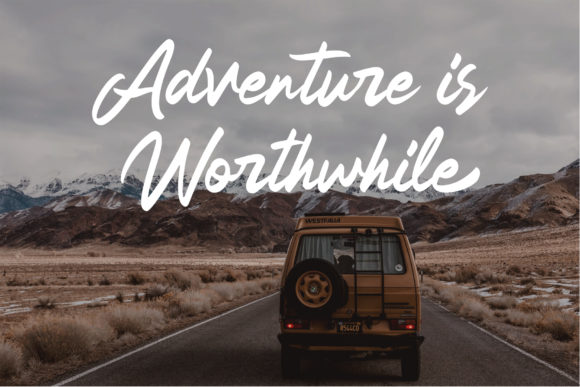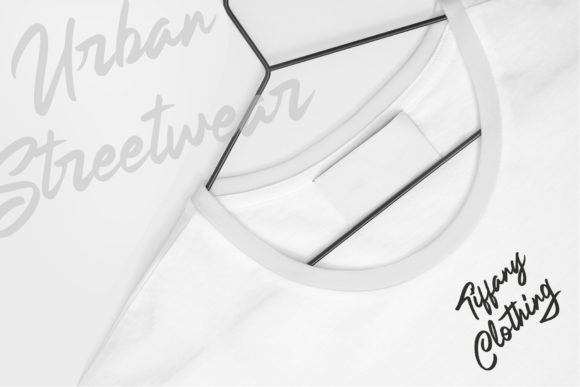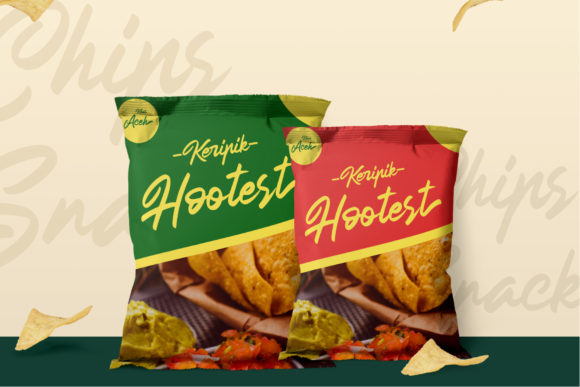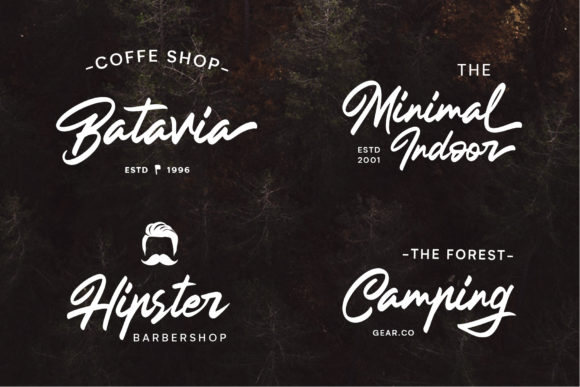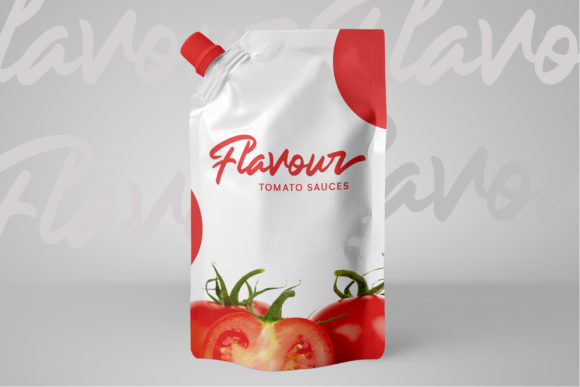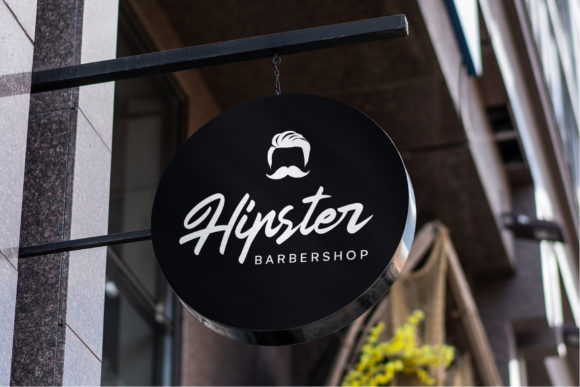
Introduction to Shining on Font
As a designer, there’s nothing quite like the thrill of bringing a creative project to life. You’ve poured your heart and soul into every detail, from the color palette to the typography. And then, you stumble upon the perfect font – one that adds a touch of elegance and sophistication to your design. For many designers, that font is the Shining on Font, a beautiful handwritten script font that shines on any design.
Whether you’re crafting a wedding invitation, a heartfelt thank you card, or a logo that exudes charm, the Shining on Font is a valuable resource that can elevate your design to new heights. With its high-quality, handwritten touch, this font is a must-have for any designer looking to add a personal and creative flair to their work. And the best part? It’s available for free download, making it an accessible design resource for designers of all levels.
One of the standout features of the Shining on Font is its transparent background, allowing you to easily combine it with other design elements. Whether you’re working on a complex project or a simple greeting card, this font is sure to shine – and make your design stand out from the crowd.
Key Features of Shining on Font
- High-quality design: Shining on Font offers a unique and creative design that is perfect for any project.
- Transparent background: The transparent background of this font allows for seamless integration into any design project.
- Resolution: The font is designed to be resolution-independent, ensuring that it looks great at any size or resolution.
- Size: The font comes in a range of sizes, from 12pt to 72pt, making it versatile for use in various design applications.
- Unique characteristics: The Shining on Font features a distinctive shine effect that adds a touch of elegance and sophistication to any design project.
Honest Review: Shining on Font
I recently stumbled upon the Shining on Font and was excited to give it a try in my next creative project. I must say, I was pleasantly surprised by the quality of this font. The high-quality design is perfect for adding a touch of elegance to any text-based element.
One of the standout features of this font is its transparent background, making it incredibly versatile for designers. I can imagine using it for anything from a logo to a social media post.
- ✨ High-quality design that adds a touch of sophistication to any project
- ⚠️ Limited font sizes and styles available
- ⚠️ Not ideal for large-scale or high-density text
Overall, I’m impressed with the Shining on Font and would definitely recommend it as a design resource for any creative project. It’s a great addition to any designer’s toolkit and is sure to add a touch of shine to any design.
Common Use Cases for Shining on Font
1. Social media graphics
2. Business cards
3. Brochures
4. Website headers
Alternatives to Shining on Font
Open Sans is a high-quality, modern sans-serif font perfect for creative projects that require a clean and minimalist look. It’s a free download and comes with a transparent background, making it ideal for use on various design elements. Open Sans is a great alternative to Shining on Font when you need a more straightforward and easy-to-read font.